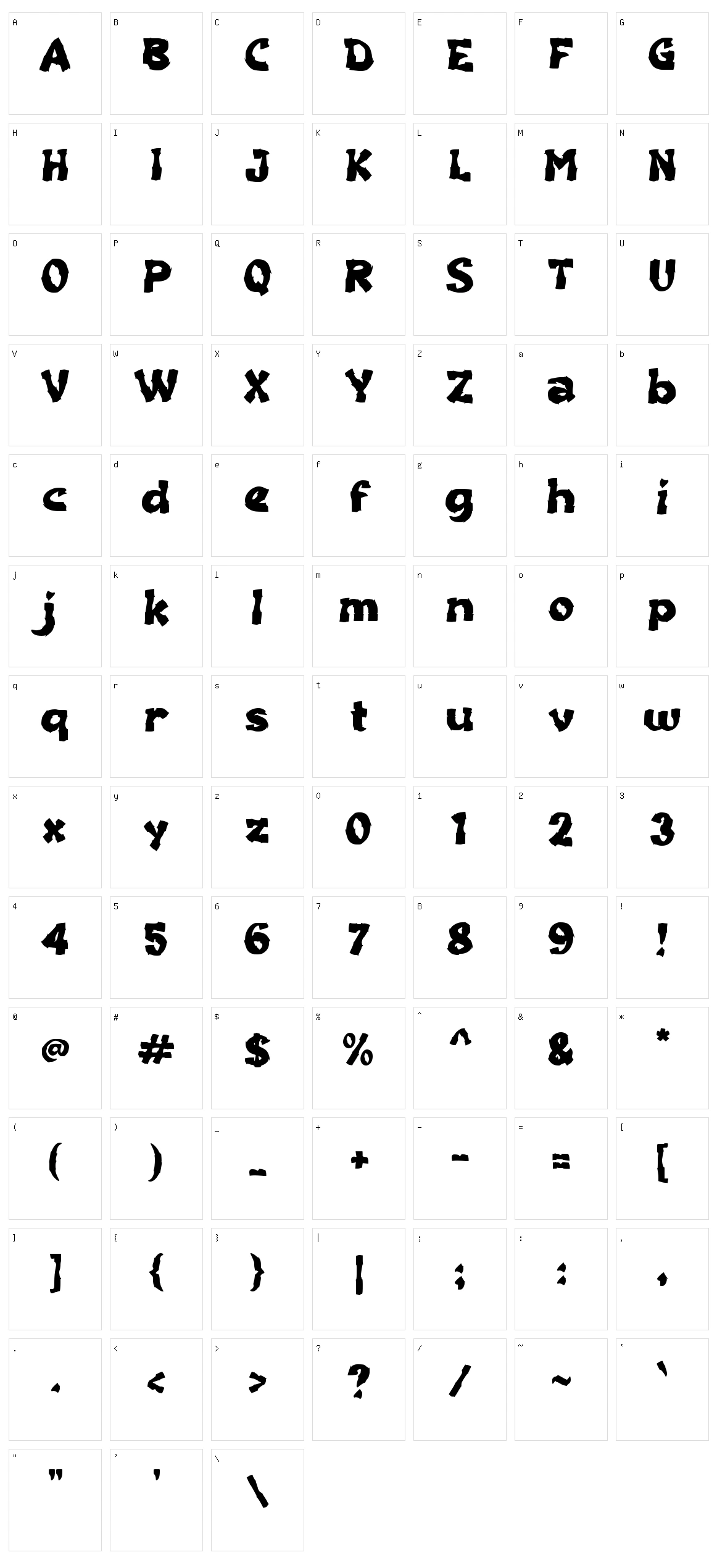
The free font c Cousin Crew is carefully designed by wep, showcasing a thoughtful balance of creativity and usability and falls under the Cartoon font style. When you download the ZIP file, it contains only 20.88 KB of font files, making it lightweight and quick to download. Please review the license details below to understand permitted usage and distribution rights. If license information is not available, we recommend using this font for personal projects only or contacting the author directly for commercial usage permissions.